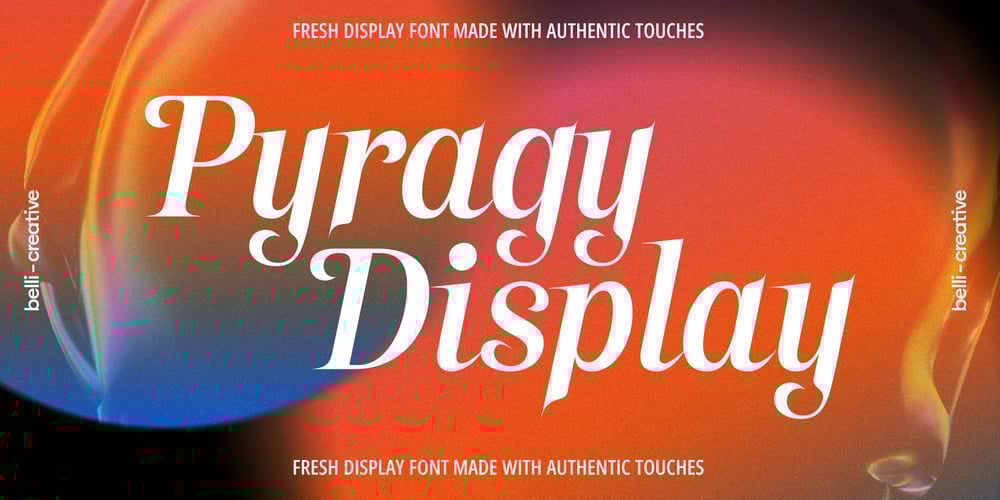
Pyragy Font Family was designed by Maysa Atabayeva and published by Belli Creative. Pyragy contains 1 styles and family package options. Pyragy is a display font with a classical vibe. It has beautifully crafted nine swashes. It’s genuine, interesting, and perfectly fits different design works, such as posters, book or album covers, digital spaces, or any other media. It supports various Latin-based languages and comes with powerful open-type and true-type features.